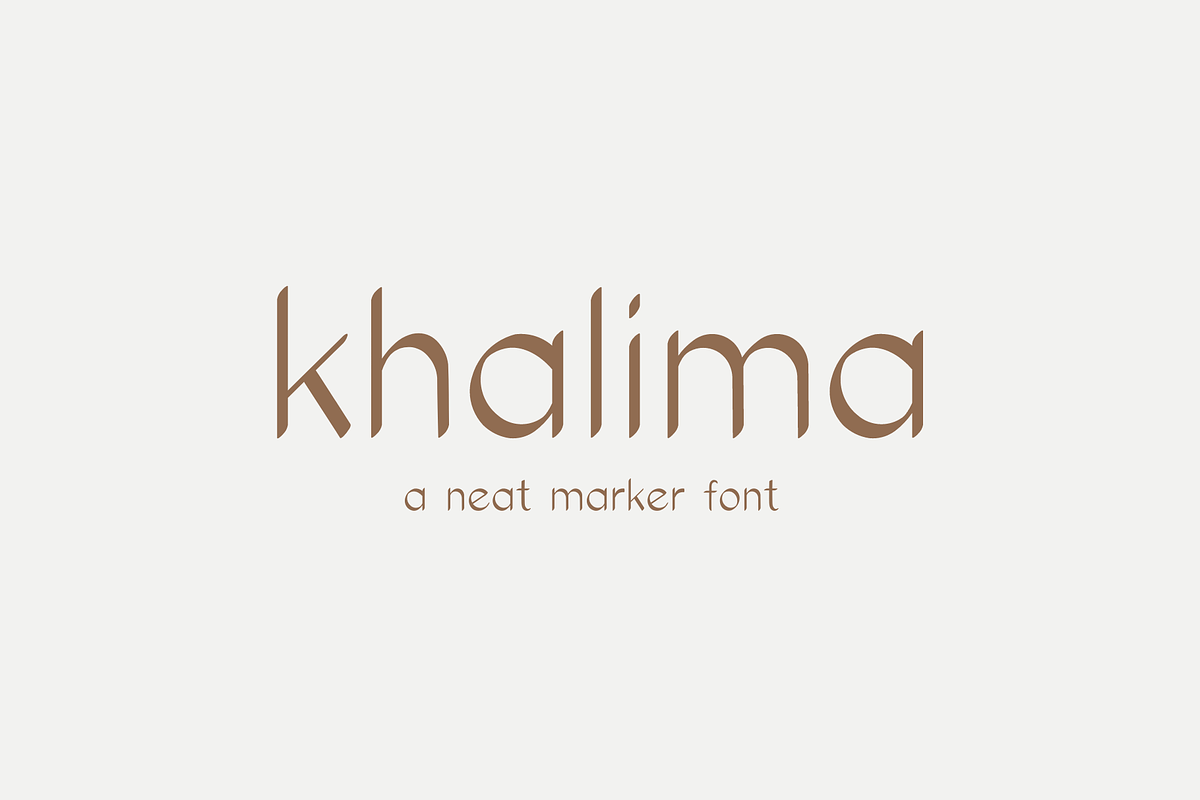
Khalima Neat Marker Font Free Download
Khalima Neat Marker Font Free Download is a clean and modern typeface inspired by the neatness and clarity of marker lettering. With its smooth, legible lines and bold character, this font is perfect for creating impactful headlines, educational materials, branding projects, and promotional content. Its neat yet playful appearance makes it ideal for projects that require a professional yet approachable look. Whether you're designing for a business, a creative campaign, or crafting social media graphics, Khalima Neat Marker Font Free Download allows you to experiment with its polished style in personal projects before purchasing a commercial license. Elevate your designs with this versatile and stylish font that combines modern design with a hint of creative flair.